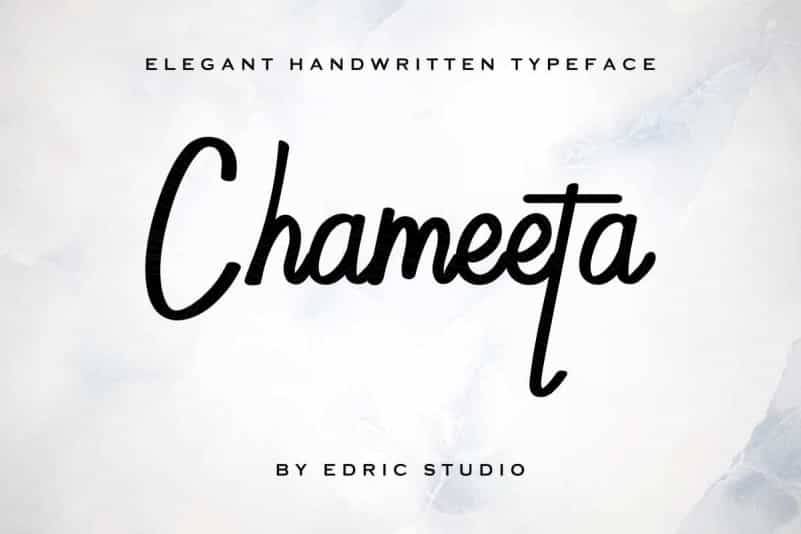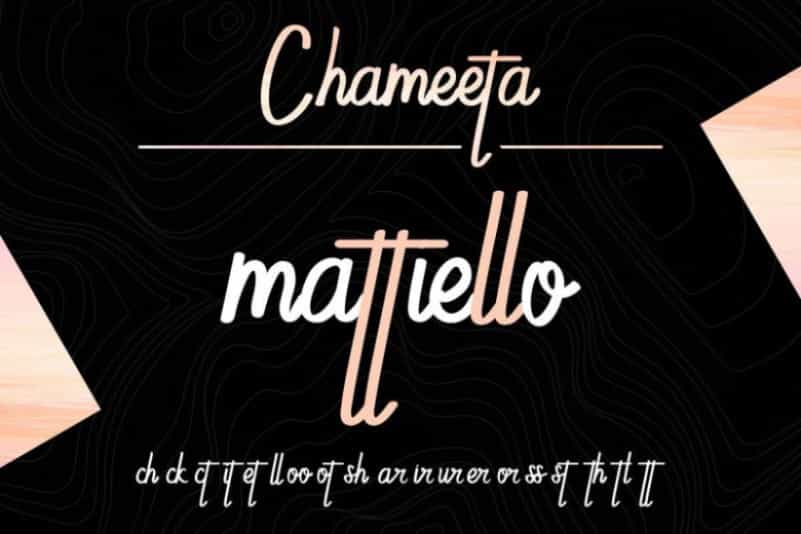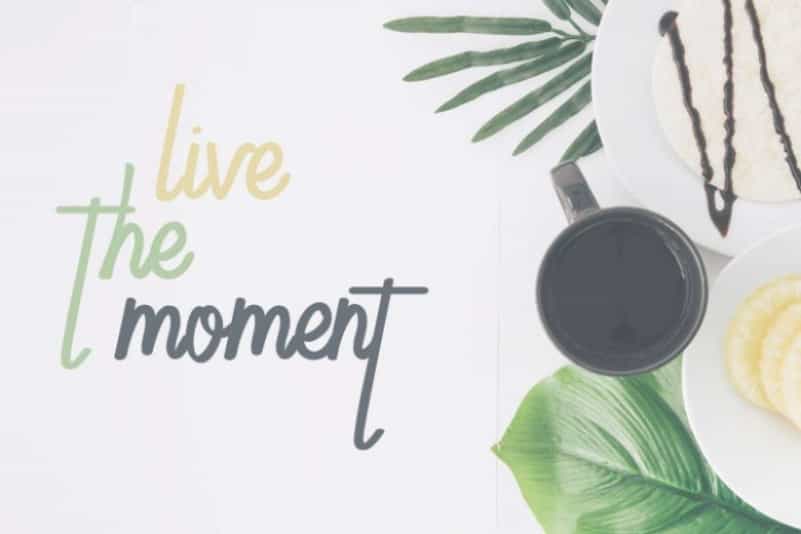
The “Chameeta Font“ is a casual marker font designed with love for your projects. You can employ it as a font for the messages or handwritten paragraphs, logo tagline, big bold messages, branding and packaging.